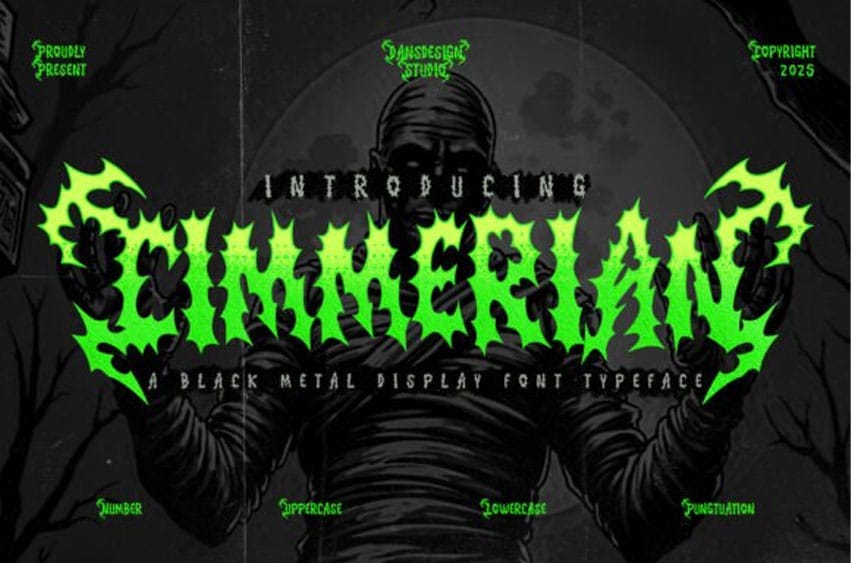
Cimmerian Font is a high-detail blackletter display font designed specifically for extreme aesthetics like metal music, horror visuals, and dark tattoo branding.
What sets Cimmerian apart is its custom-designed ligatures, inspired by raw, aggressive black metal logos. These ligatures give your typography a handcrafted, sinister edge, without the need for manual edits.